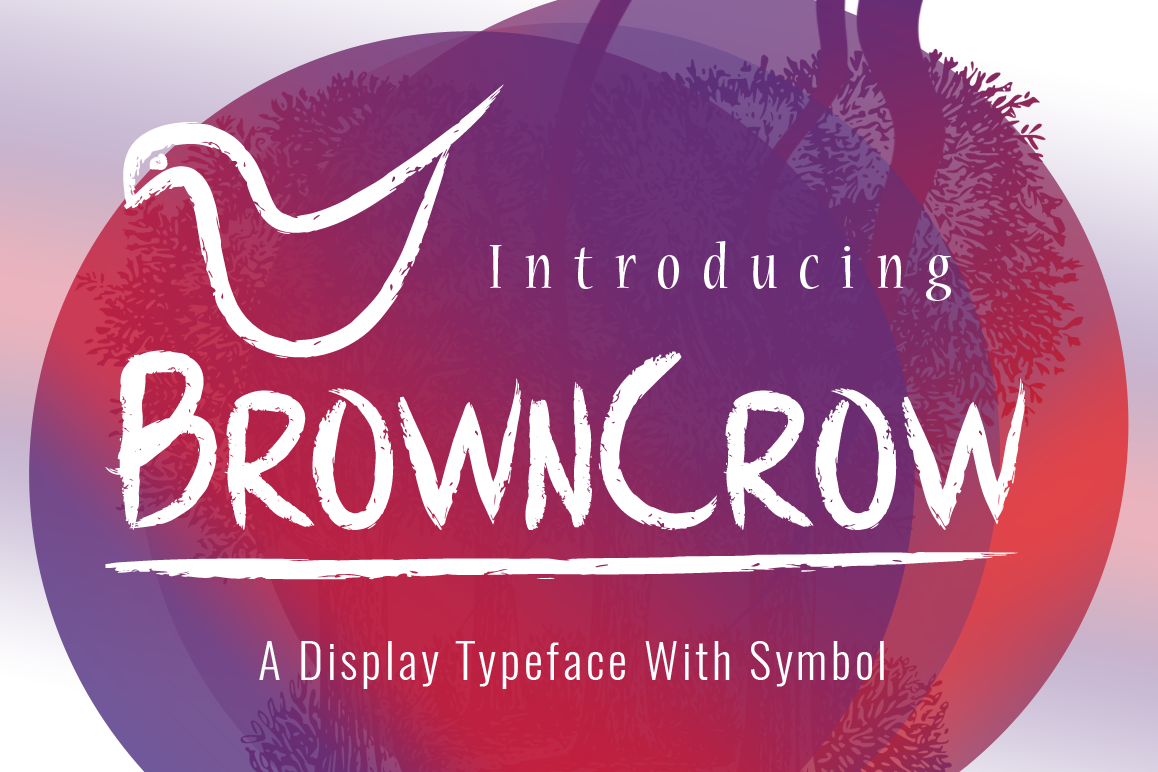
BrownCrow Typeface
Introducing BrownCrow!
BrownCrow is a new & modern handmade font. BrownCrow is perfectly suited to stationery, logos, t-shirt, paper, print design, website header, photo frame, flyer, music cover, poster, image slider and much more.
• Numerals
• Punctuation
Includes a range of multilingual support